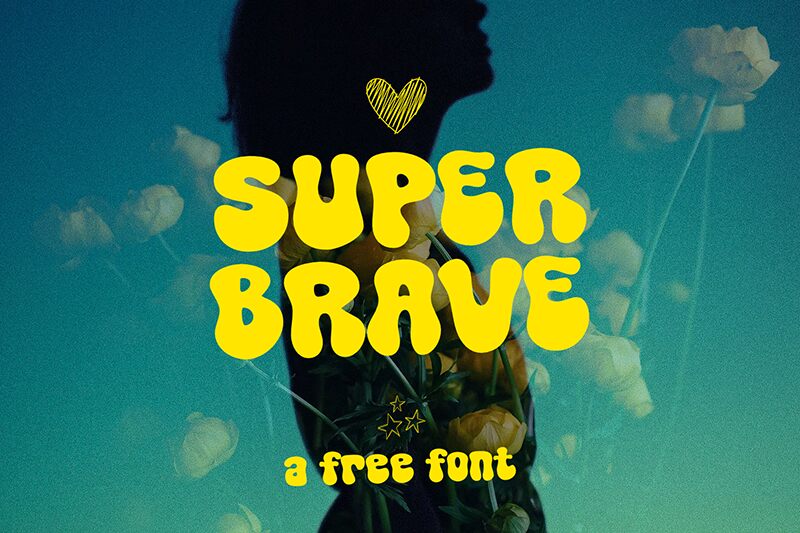
Super Brave
Super Brave font by fsuarez913 is a whimsical and retro display font with a bubbly design. The bold and groovy letters of this font easily impress, even from afar, since they have an eye-catching nature that highlights anything they’re added to. Super Brave has a playful character, especially with its bouncy letter positioning.
Use the style in designing funky posters, amazing flyers, social media posts, or magazine covers. Combine it with pictures in album covers of your favorite musical hits, or pick it up for your next packaging or branding projects. T-shirts are another fantastic medium to explore Super Brave’s potential as well as mugs and other types of fun gifts and souvenirs.